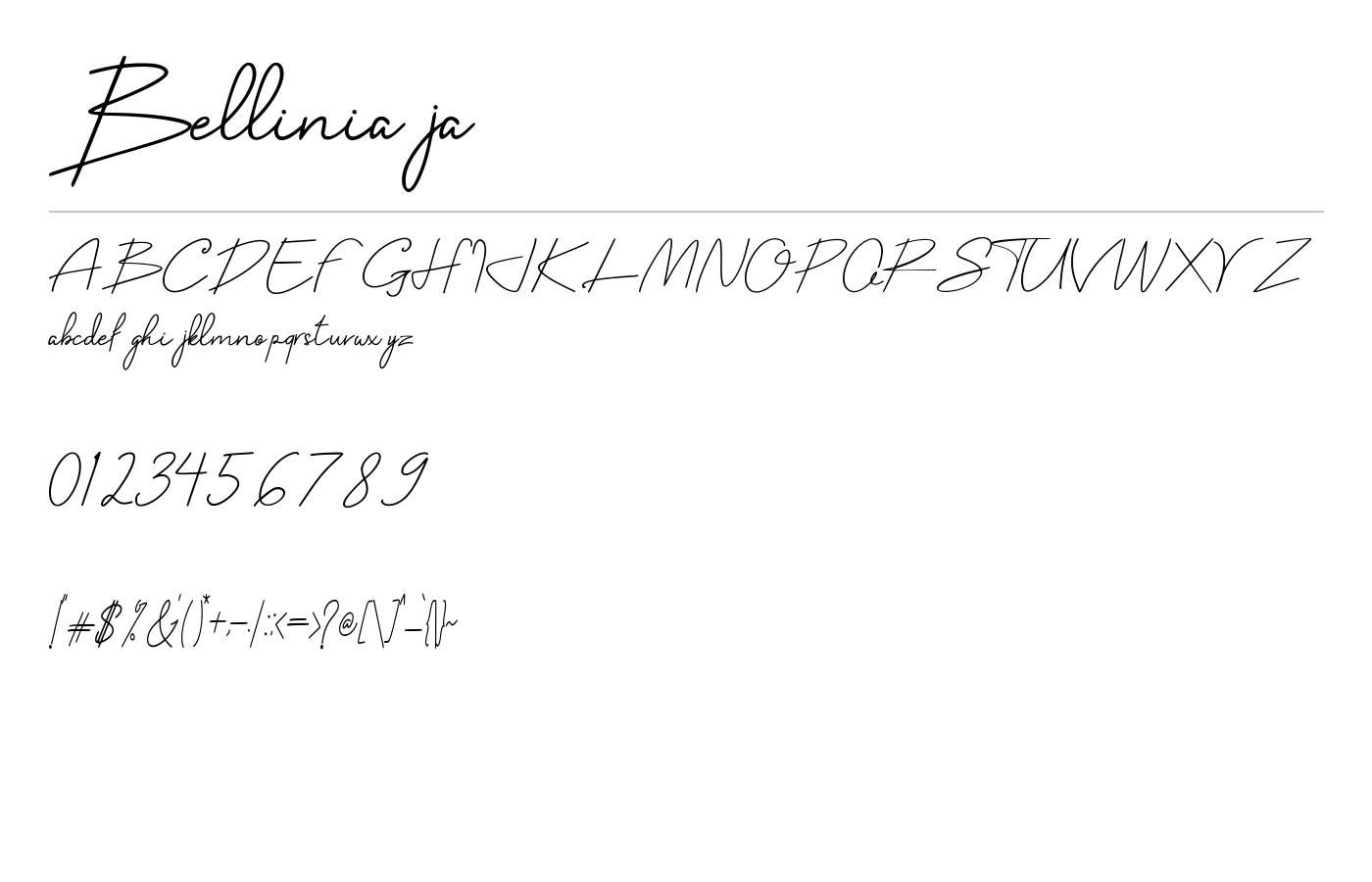
Belliniaja is a delicate, modern script font characterized by its thin, flowing strokes and elegant handwritten style. Its slender letterforms and airy spacing create a light, graceful feel, making it ideal for stylish branding, invitations, and artistic projects that require a personal, refined touch. This font excels in conveying warmth and sophistication while maintaining readability and charm.
Belliniaja Font
About Belliniaja Font